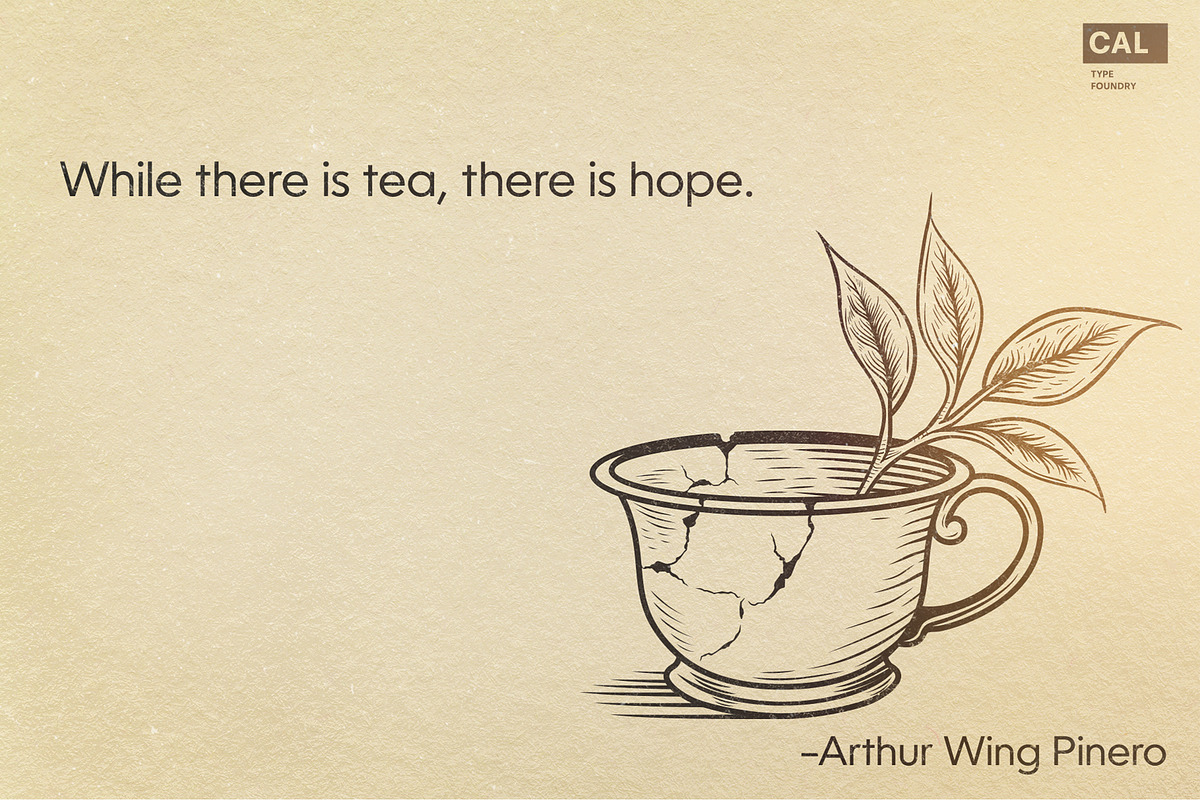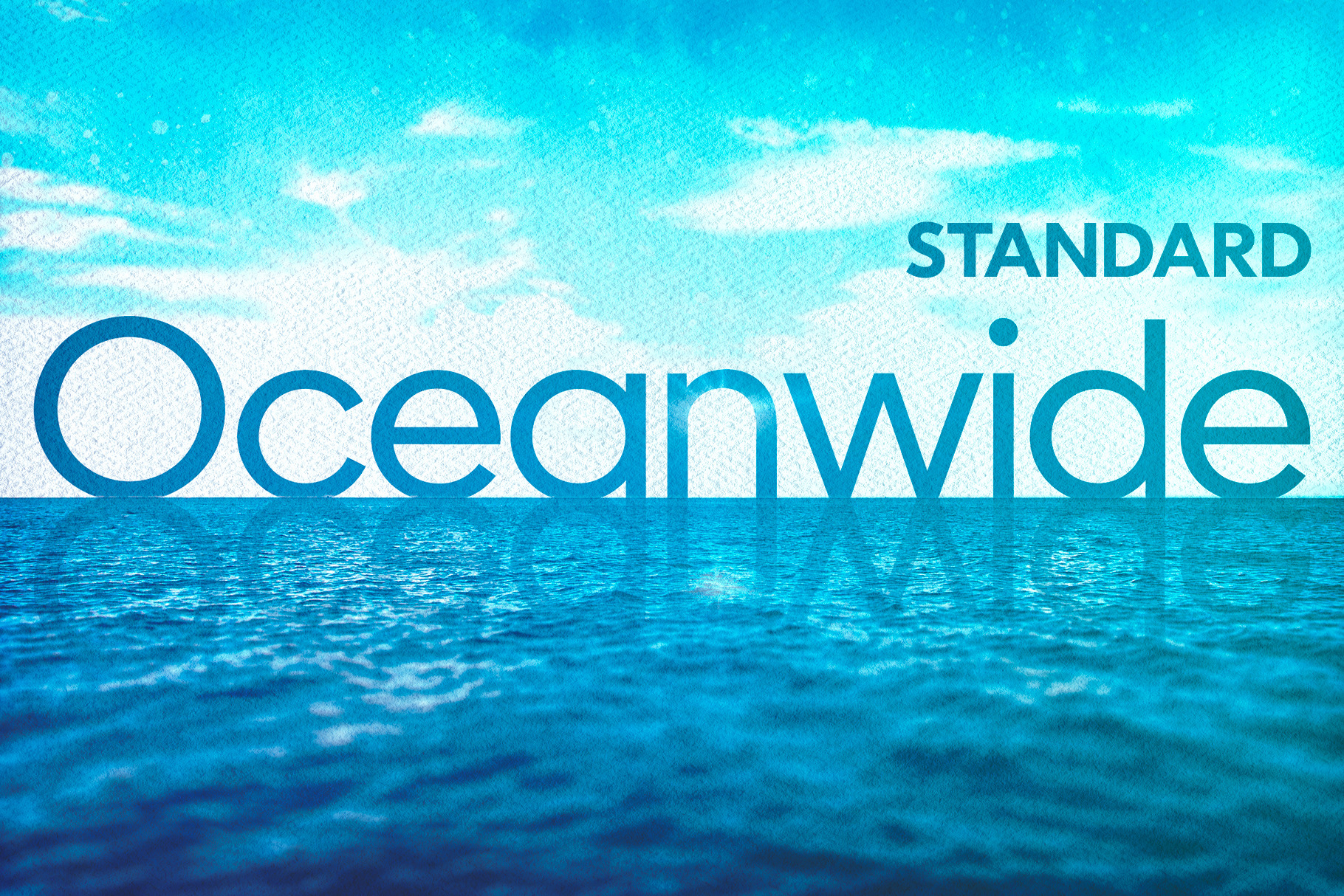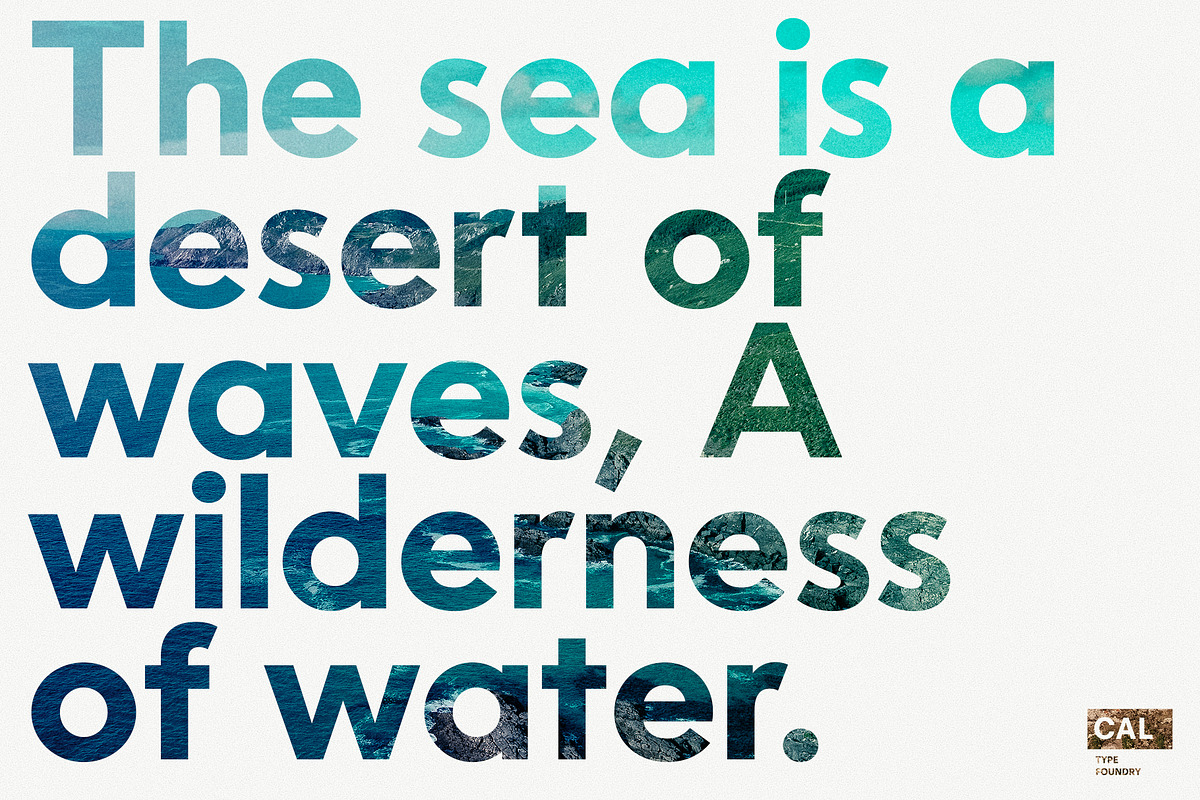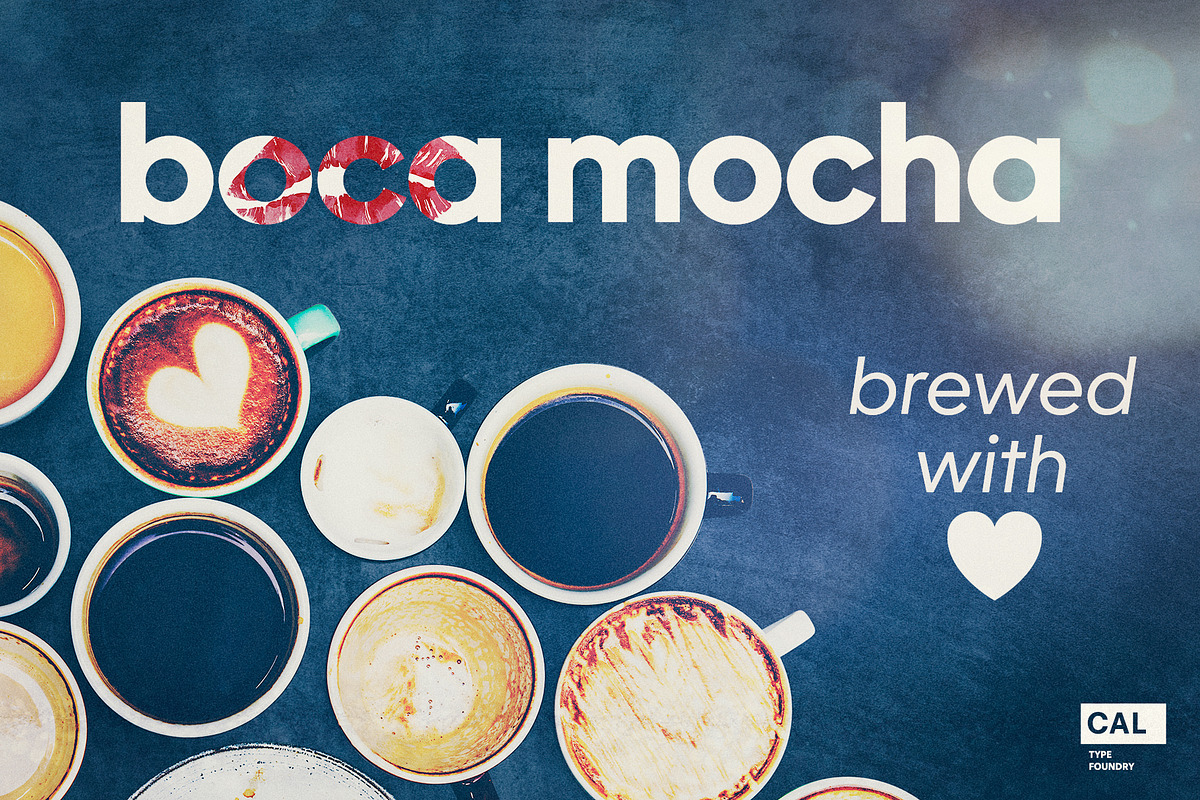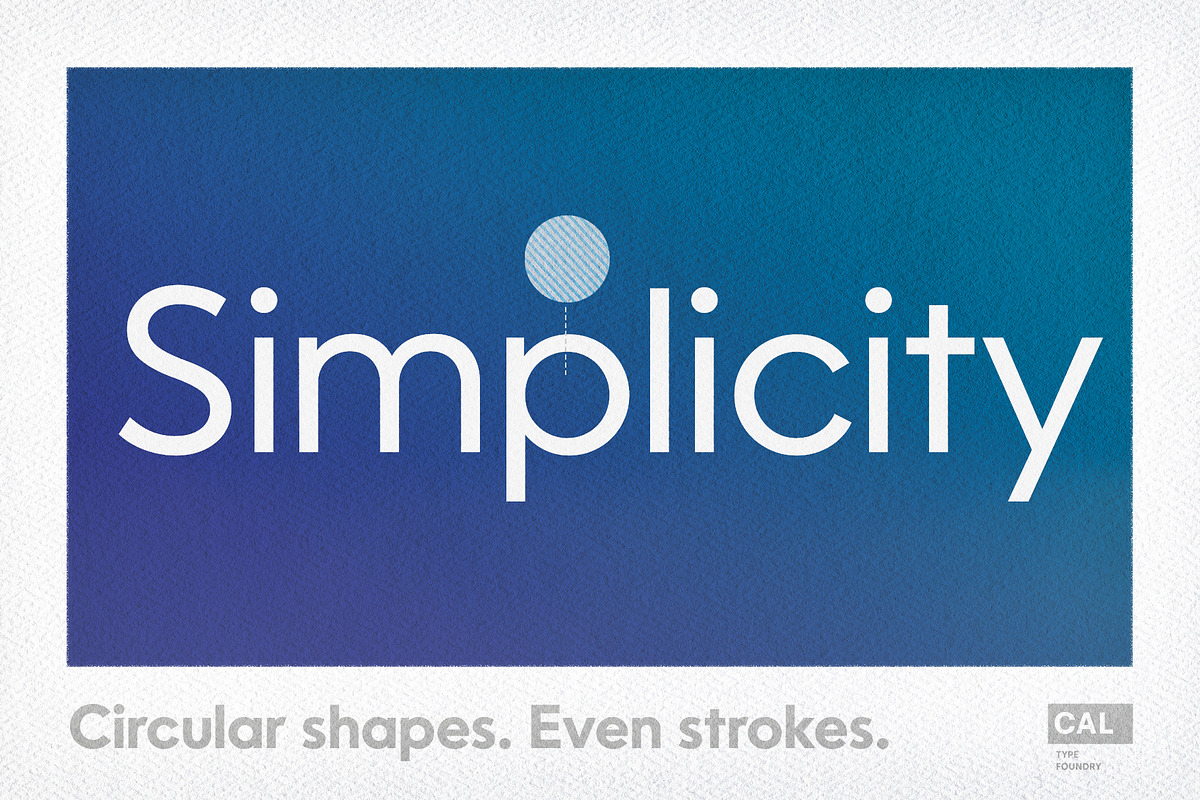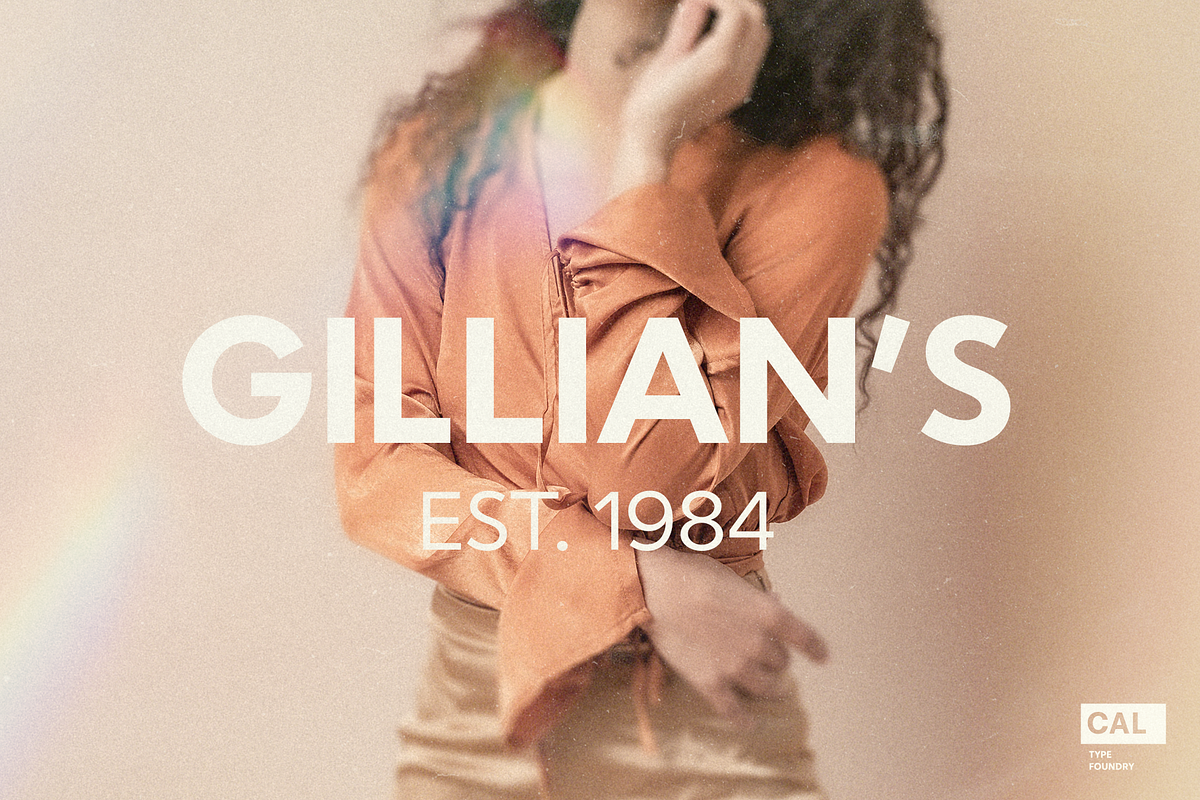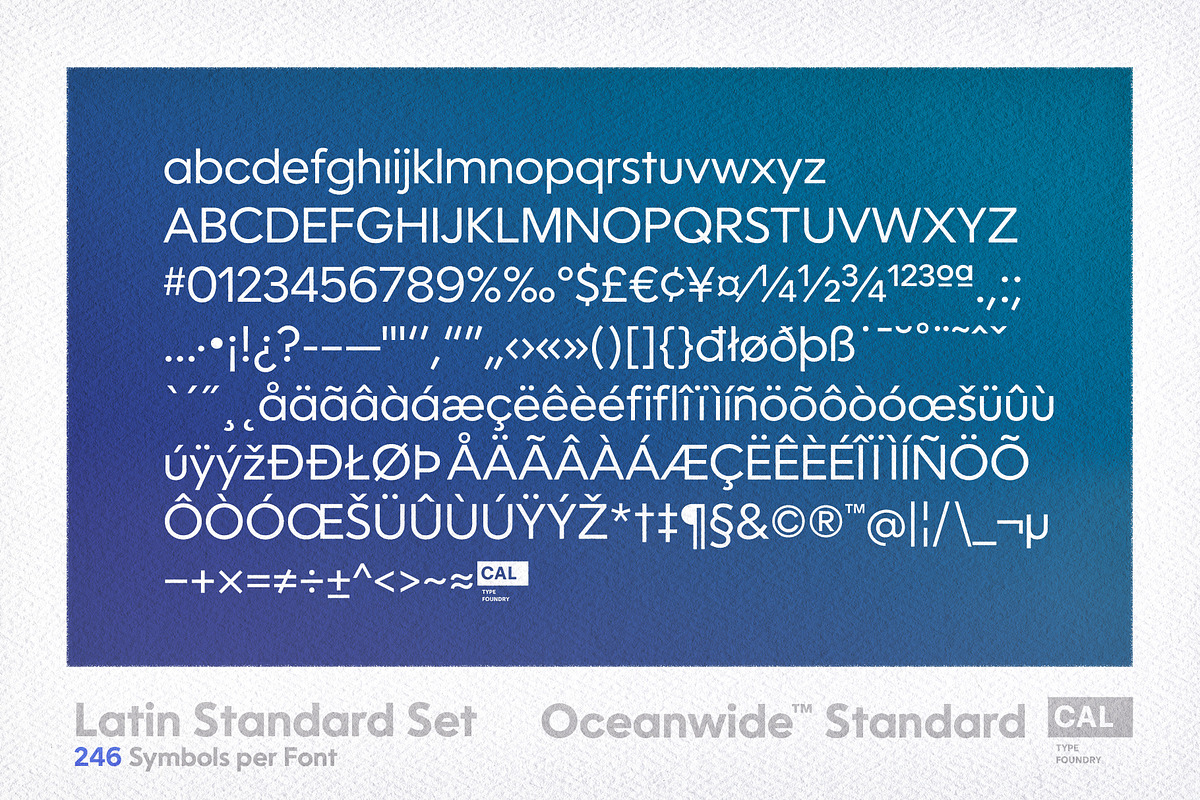
Oceanwide Standard: 6 Fonts Package
A font perfect for not just one, but many projects! Introducing Oceanwide Standard, a sans that loves to be used in just about any situation! Designed with ultra clean lines and versatility in mind, Oceanwide wants to be your new favorite sans!
WHAT YOU GET
- 6 fonts: Light, Regular, and Bold weights with their matching Obliques
- 246 symbols per font
- Multi-lingual friendly!
- Uppercase punctuation and spacing
- Expert kerning
Oceanwide’s ultra clean letters work anywhere you want to communicate orderliness and competence, and designed to build trust and rapport with your audience. Its wide proportions make it ideal for display and logo use.
Oceanwide especially shines for white/bright letters on black/dark backgrounds! That’s because the inside shapes are nearly perfect circles in many weights.